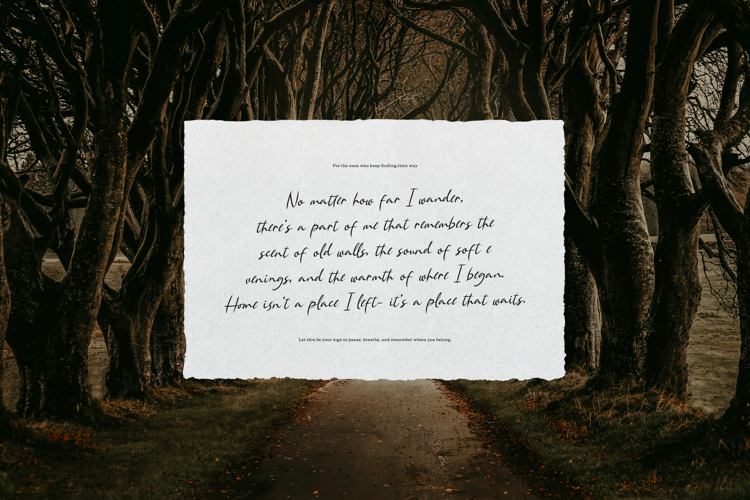
Single Whimney Font
Single Whimney | Handwritten Script is suitable for any projects such as: logos, branding projects, homeware designs, product packaging, mugs, quotes, posters, shopping bags, t-shirts, book covers, name card, invitation cards, greeting cards, label, photography, watermark, special events, and all your other lovely projects that need a Script taste.